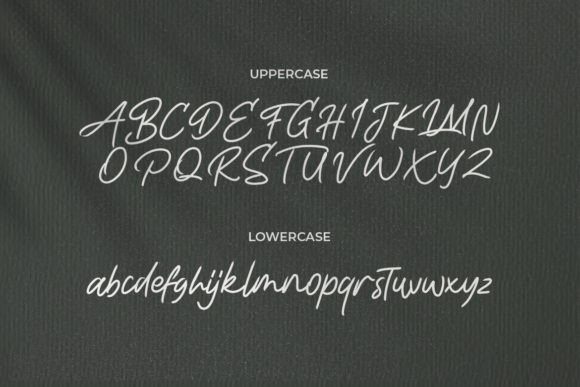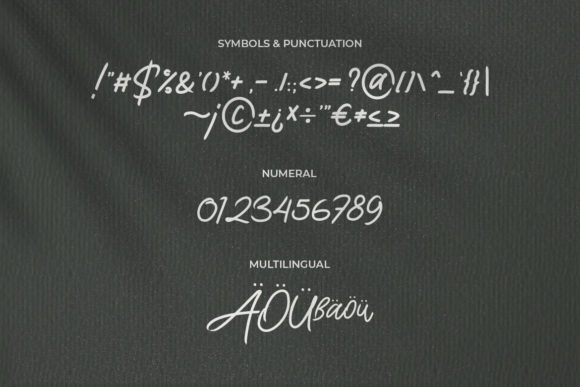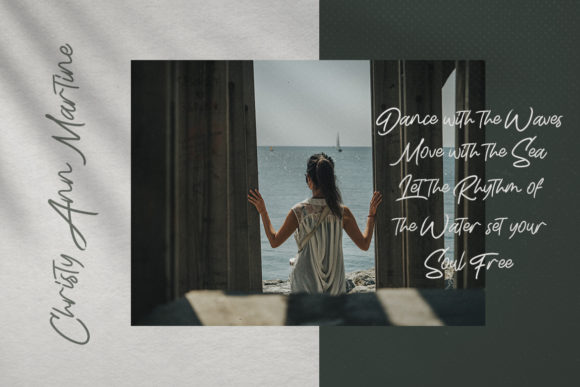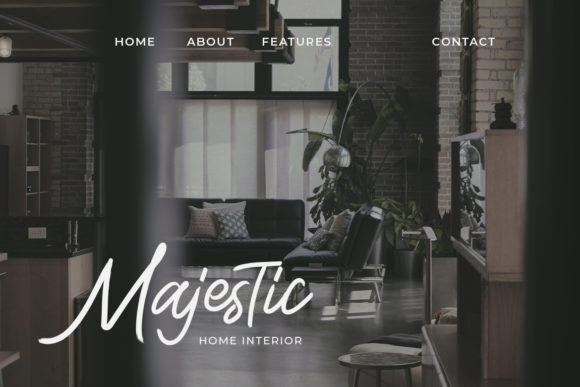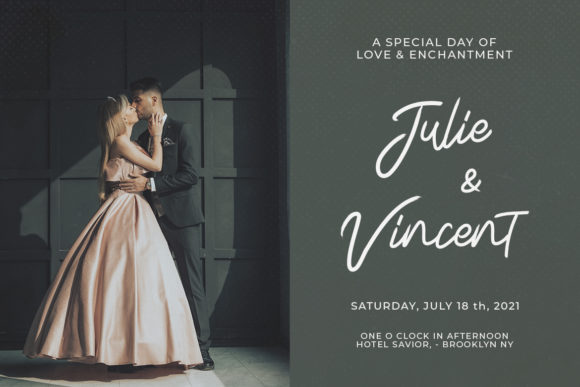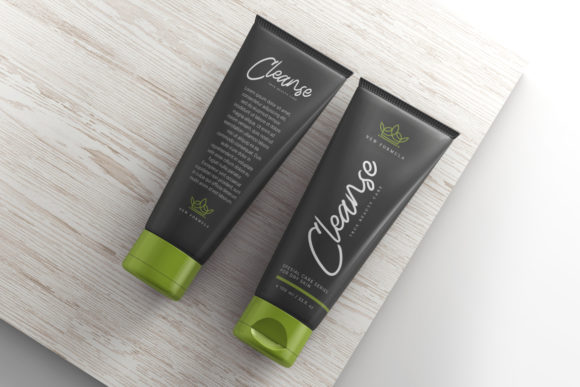
Introduction to Life Rolling Font
Life Rolling is a elegant handwriting typeface, perfectly suitable for creating quotes, wedding Invitations, lifestyle designs such as logos, titles, magazine covers and more.
Key Features of Life Rolling Font
Why Choose Life Rolling Font?
Life Rolling Font offers exceptional quality and versatility, making it a valuable addition to your design toolkit. Whether you’re creating for personal projects or commercial use, Life Rolling Font delivers professional results.